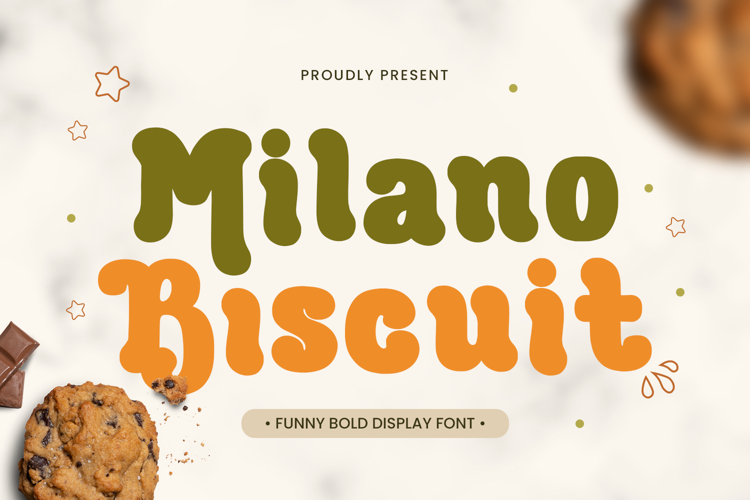
Milano Biscuit - Food Font
Milano Biscuit is a delightful food-inspired font that blends playful charm with a warm, appetizing personality. Its soft curves and rounded letterforms create a friendly and inviting appearance, making every word feel sweet, cheerful, and easy to read. The design captures the comforting feeling of freshly baked treats and cozy café moments.
Inspired by bakery aesthetics and delicious desserts, Milano Biscuit brings a fun and flavorful character to typography. The smooth and slightly chunky shapes resemble soft dough and tasty pastries, creating a style that feels both cute and visually satisfying.
This font works beautifully for food branding, bakery logos, café menus, snack packaging, and dessert labels. It also fits perfectly for posters, product packaging, social media graphics, and restaurant promotions that need a warm and appetizing visual identity.
Beyond food-related designs, Milano Biscuit is also ideal for craft projects, Cricut designs, SVG lettering, invitations, and playful creative themes. Its charming personality adds a sweet and memorable touch to any design that needs a friendly and joyful atmosphere.